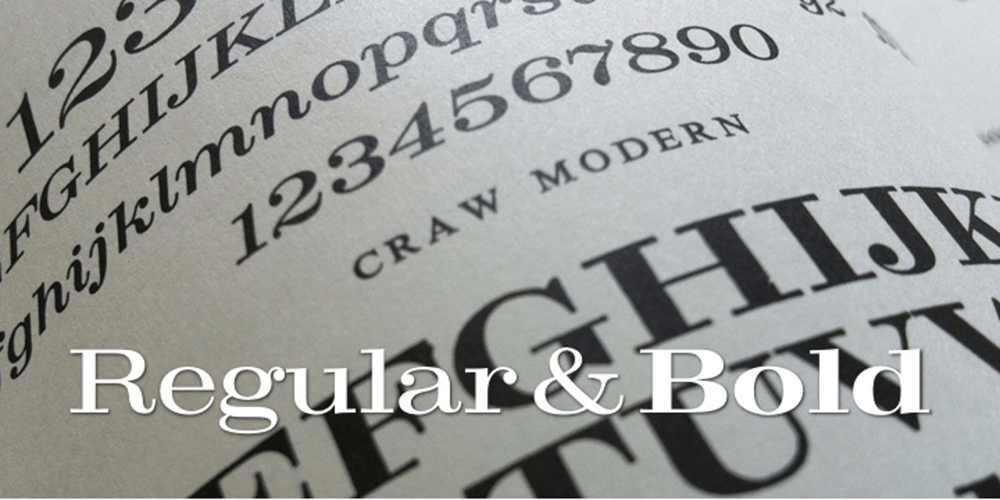
Craw Modern Font Family was designed by Freeman Craw and published by GroupType. Craw Modern contains 2 styles and family package options. Craw Modern was designed by Freeman Craw in 1958 and first released by The American Typefounders Company, (ATF). In typography, ‘Modern’ is a style of typeface (classification) developed in the late 18th century that continued through much of the 19th century. Characterized by high contrast between thick and thin strokes and flat serifs. Bodoni is among the most popular of the Moderns. Moderns are also known as Didone and New Antiqua.